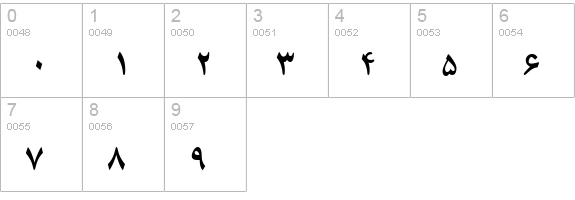
B Compset Bold is a strong, high-contrast variant in the B typeface family \xE2\x80\x94 well suited to headlines, attention-grabbing titles, and strong calls-to-action.
B Compset Bold font is a modern and stylish typeface that exudes confidence and boldness. Its strong and impactful design makes it perfect for headlines, titles, and any other text that needs to make a statement. The sharp edges and clean lines give this font a contemporary look that is sure to attract attention. What's even better is that B Compset Bold font is available for free download at FontsMarket.com. This means you can easily access this eye-catching font and use it in your projects without any cost. Whether you're designing a poster, creating branding materials, or simply looking to add some flair to your text, B Compset Bold font is a fantastic choice that won't break the bank. Download it now and elevate your designs with this dynamic and striking typeface.